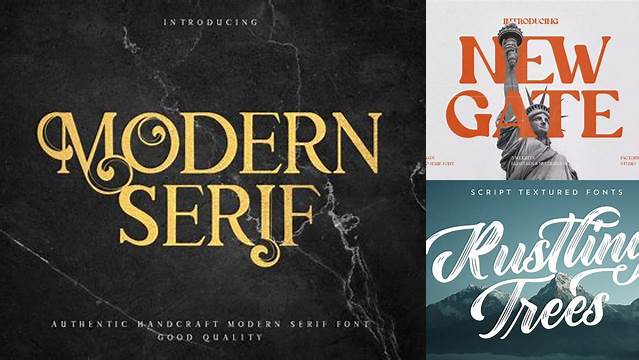
Best Fonts For Poster Design: Ultimate Guide
Designing a killer poster? The fonts you choose are just as crucial as the graphics and layout! Think of fonts as the voice of your poster β they convey the message's tone, style, and overall vibe. Choosing the wrong font can make your poster look amateurish or even confusing, while the right font can make it pop and grab attention. Let's dive into the exciting world of poster fonts and explore how to make the best choices for your next project. When it comes to fonts for posters, there's no one-size-fits-all solution. The ideal font depends heavily on the poster's purpose, the target audience, and the overall design aesthetic you're aiming for. Are you creating a poster for a rock concert, a vintage movie night, a modern art exhibition, or a children's event? Each scenario calls for a different font style to effectively communicate the message and capture the right mood. For instance, a bold sans-serif font might be perfect for a music festival poster, conveying energy and excitement, while an elegant serif font could be more appropriate for a classical music concert, exuding sophistication and tradition. Understanding your audience is also key. Consider their age, interests, and cultural background when selecting fonts. A font that resonates with one demographic might not appeal to another. For a younger audience, you might experiment with playful and unconventional fonts, while a more mature audience might appreciate classic and legible fonts. Ultimately, the goal is to choose fonts that not only look good but also connect with your target audience on an emotional level.
Understanding Font Types
Okay guys, let's break down the major font categories β this is essential knowledge for any poster designer! Knowing the differences between serif, sans-serif, script, and decorative fonts will empower you to make informed decisions and create visually stunning posters. Serif fonts are those with the little "feet" or strokes at the ends of the letters. Think Times New Roman or Garamond. They often convey a sense of tradition, authority, and elegance. In posters, serifs can be fantastic for headings or body text when you want a touch of sophistication. Picture a poster for a historical play or a formal event β a well-chosen serif font can set the perfect tone. Sans-serif fonts, on the other hand, are clean and modern, lacking those little serifs. Arial, Helvetica, and Open Sans are popular examples. These fonts tend to be highly legible and versatile, making them great for a wide range of poster designs. They work particularly well for posters with a contemporary feel, such as those for tech conferences or art exhibitions. Sans-serif fonts are also a safe bet for body text, ensuring readability even at smaller sizes. Script fonts mimic handwriting, adding a touch of personality and flair. Think of calligraphy or cursive styles. These fonts can be beautiful for posters with a romantic, vintage, or handcrafted feel. Imagine a poster for a wedding or a craft fair β a delicate script font can add a touch of elegance and charm. However, script fonts can sometimes be tricky to read, so it's best to use them sparingly, perhaps for headings or short phrases, and pair them with a more legible font for body text. Decorative fonts are the wild cards of the font world! They're designed to be eye-catching and unique, often with distinctive shapes, patterns, or embellishments. These fonts are perfect for creating a bold statement and adding visual interest to your posters. Think of a poster for a Halloween party or a circus event β a quirky decorative font can really grab attention. But a word of caution: decorative fonts should be used sparingly, as they can easily overwhelm a design if overused. It's best to reserve them for specific elements, like the main headline, and balance them with simpler fonts for the rest of the text.
Pairing Fonts Like a Pro
Font pairing is where the magic happens! Combining different fonts thoughtfully can elevate your poster design from good to amazing. But pairing fonts can also be a bit daunting β how do you know which fonts work well together? Don't worry, it's easier than you think! The key is to create contrast and visual harmony. Think of it like putting together an outfit: you want to mix and match different styles and textures to create a cohesive and interesting look. One classic pairing strategy is to combine a serif font with a sans-serif font. This creates a nice visual contrast while maintaining legibility. For example, you might use a bold serif font for the headline and a clean sans-serif font for the body text. This combination is both professional and easy to read. Another approach is to pair fonts from the same family but with different weights or styles. For instance, you could use a bold version of a font for the headline and a lighter version for the body text. This creates a subtle but effective visual hierarchy. Itβs like using different shades of the same color to create depth and dimension in a painting. When choosing fonts to pair, it's also important to consider their personalities. Some fonts are serious and formal, while others are playful and whimsical. You want to choose fonts that complement each other and convey the right mood for your poster. Imagine pairing a formal serif font with a quirky decorative font β it might look a bit jarring! Instead, try pairing fonts that share similar characteristics or have contrasting but complementary styles. One great way to find font pairings is to look at examples of well-designed posters and identify the fonts they use. There are also tons of resources online, like font pairing generators and articles, that can offer inspiration and guidance. Remember, practice makes perfect! Experiment with different font combinations and see what works best for your design. Don't be afraid to try something new and break the rules β sometimes the most unexpected pairings can create the most stunning results. Ultimately, the goal is to choose fonts that not only look good together but also enhance the overall message and aesthetic of your poster.
Best Fonts for Posters: Top Recommendations
Alright, let's get down to specifics! What are some of the best fonts for poster design in 2024? I've got a list of recommendations spanning various styles and aesthetics, so you're sure to find something that suits your project. First up, we have Helvetica. This classic sans-serif font is a true workhorse. It's incredibly versatile, legible, and timeless, making it a fantastic choice for a wide range of poster designs. Helvetica is especially effective for posters that need a clean, modern, and professional look. Think of posters for corporate events, conferences, or design exhibitions. Next, let's talk about Bebas Neue. This bold sans-serif font is a favorite among designers for its tall, narrow letterforms and strong visual impact. Bebas Neue is perfect for headlines and titles, grabbing attention and making a statement. It's a popular choice for posters for music events, sports competitions, and product launches. If you're looking for a serif font with a touch of elegance, Playfair Display is a great option. This font has a classic and sophisticated feel, making it ideal for posters for weddings, galas, or upscale events. Playfair Display works beautifully for headlines and can be paired with a simpler sans-serif font for body text. For a modern and geometric sans-serif font, Montserrat is a solid choice. This font has a clean, minimalist aesthetic that's perfect for posters with a contemporary feel. Montserrat is highly legible and versatile, making it suitable for a variety of applications, from posters for tech startups to art galleries. If you want to add a touch of personality and flair to your posters, consider using Roboto. This sans-serif font has a friendly and approachable vibe, with slightly rounded letterforms. Roboto is a great choice for posters for community events, workshops, or creative projects. Looking for a bold and impactful font? Impact lives up to its name! This condensed sans-serif font is designed to grab attention and make a statement. Impact is perfect for posters that need to be seen from a distance, such as those for concerts, festivals, or sales events. Remember, these are just a few suggestions, and there are countless other amazing fonts out there. The best font for your poster will depend on your specific needs and design vision. Don't be afraid to explore, experiment, and find the perfect font to bring your ideas to life.
Font Size and Hierarchy: Making Your Message Clear
Okay, you've chosen your fonts β awesome! But the job's not done yet. Now you need to think about font size and hierarchy to ensure your message is clear and impactful. This is all about guiding the viewer's eye and making sure the most important information stands out. Think of your poster as a visual story β you want to lead the viewer through the information in a logical and engaging way. The font sizes you use play a crucial role in this process. The headline, of course, should be the largest text on your poster, grabbing attention and conveying the main message. Think big and bold! The subheading, if you have one, should be slightly smaller than the headline but still prominent. It provides additional context and draws the viewer further into the design. Body text, which contains the details and supporting information, should be the smallest text on your poster. It needs to be legible but shouldn't overpower the headline and subheading. Finding the right balance between these font sizes is key to creating a clear visual hierarchy. You want the viewer to be able to quickly and easily understand the main message, supporting details, and any call to action. The contrast in font sizes is what creates this hierarchy. A general guideline is to use at least a 2-point difference between font sizes, but you can experiment with larger differences for greater impact. Beyond size, font weight also plays a role in hierarchy. A bold font will naturally stand out more than a regular or light font. You can use font weight to emphasize key words or phrases within your body text. Color is another powerful tool for creating hierarchy. A brightly colored headline will grab attention more effectively than a muted one. Consider using different colors for your headline, subheading, and body text to create visual separation and guide the viewer's eye. Finally, placement is crucial. Position the most important information in the most visible areas of your poster, such as the top center or the upper left corner. Use negative space to your advantage, giving your text room to breathe and preventing it from feeling cluttered. Remember, the goal is to create a poster that's both visually appealing and easy to read. By paying attention to font size, weight, color, and placement, you can create a strong visual hierarchy that effectively communicates your message and captivates your audience.